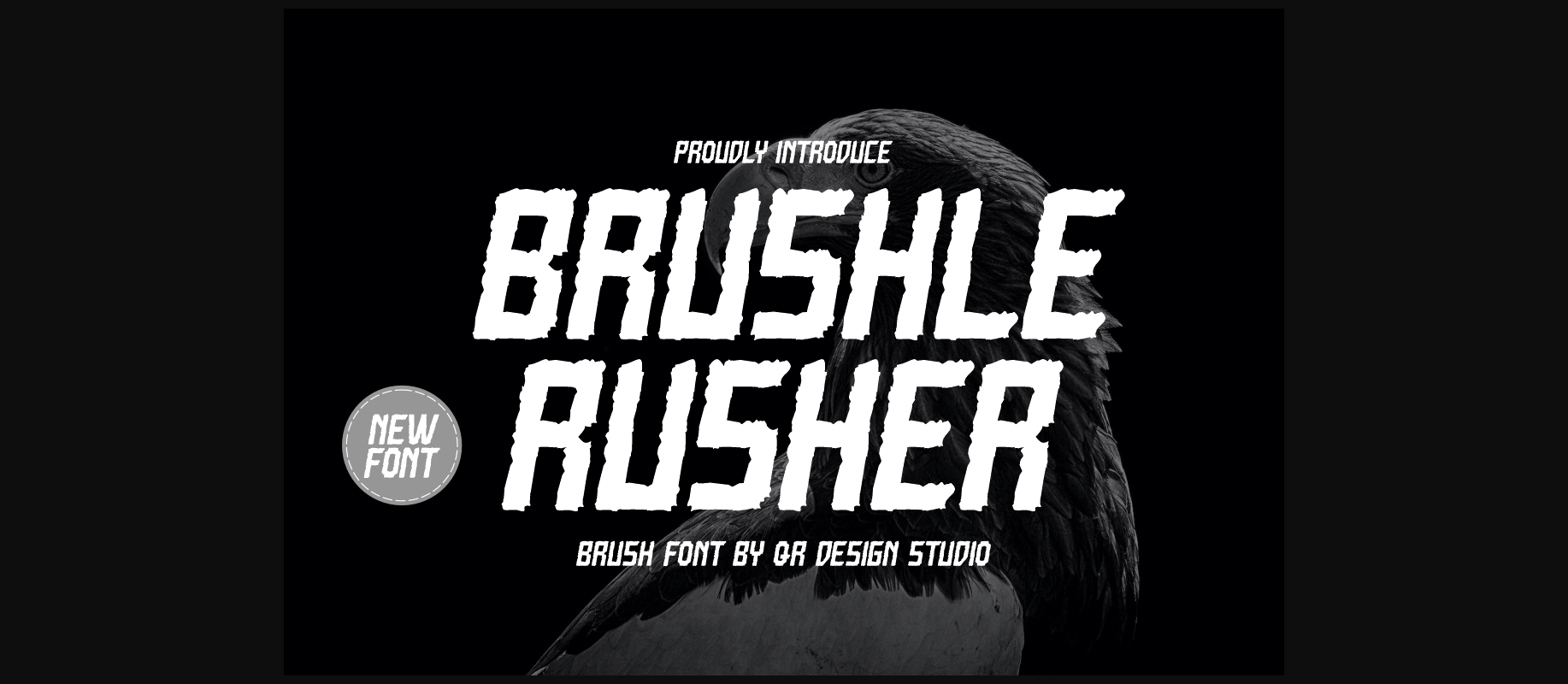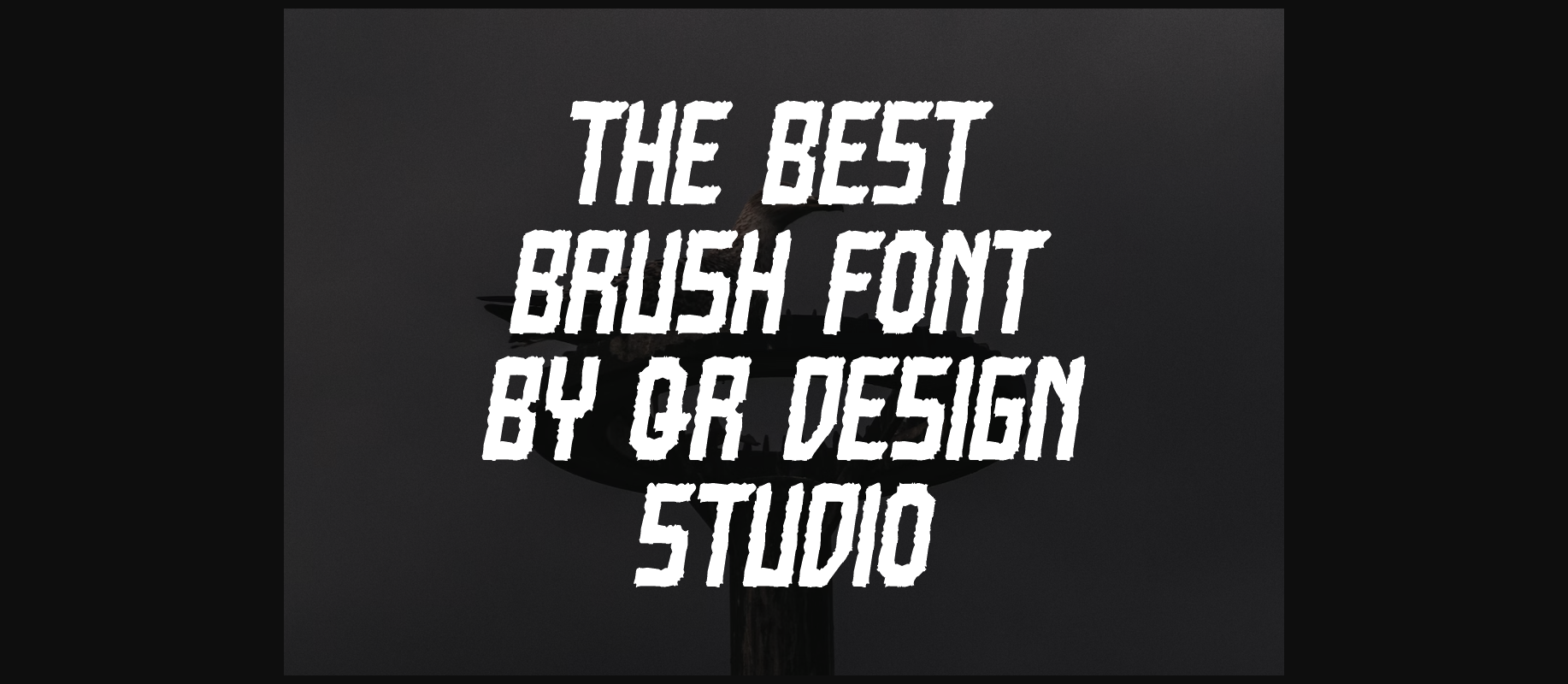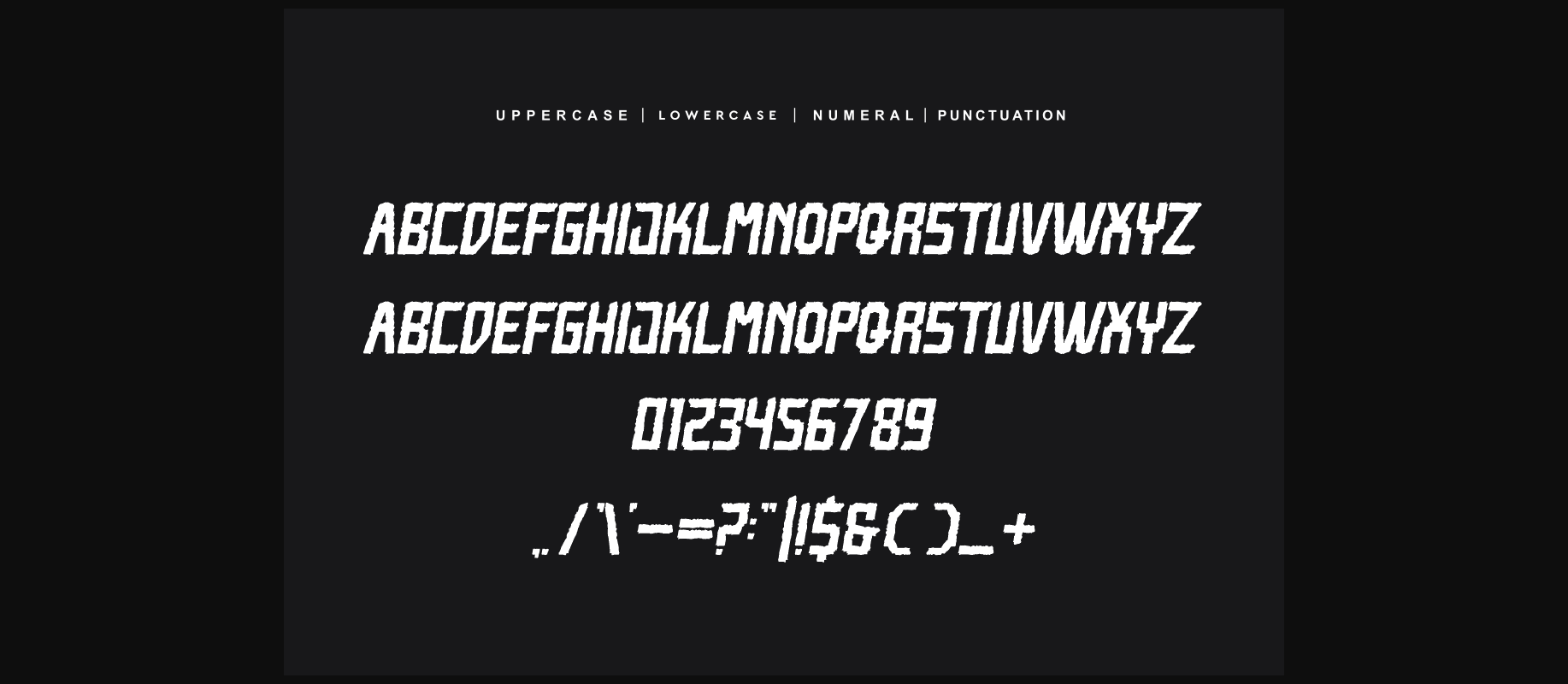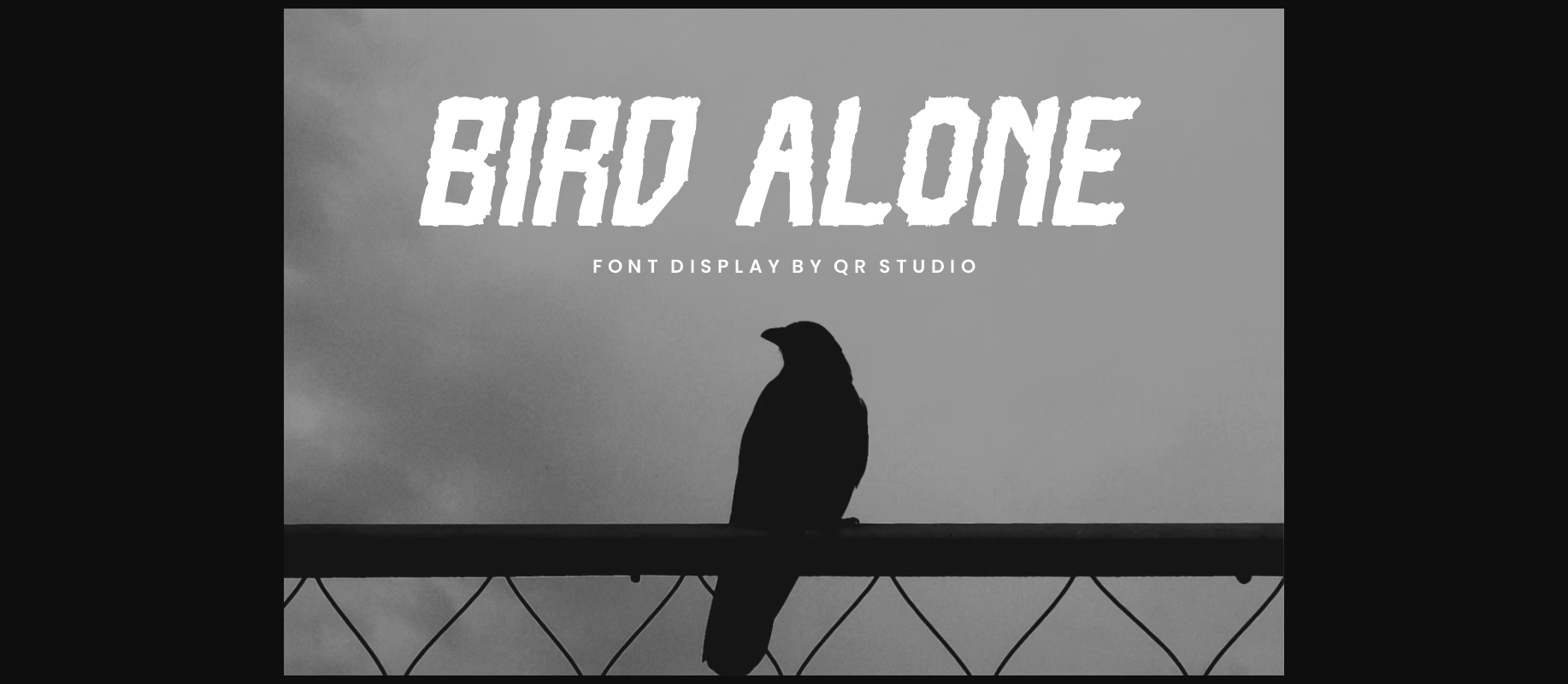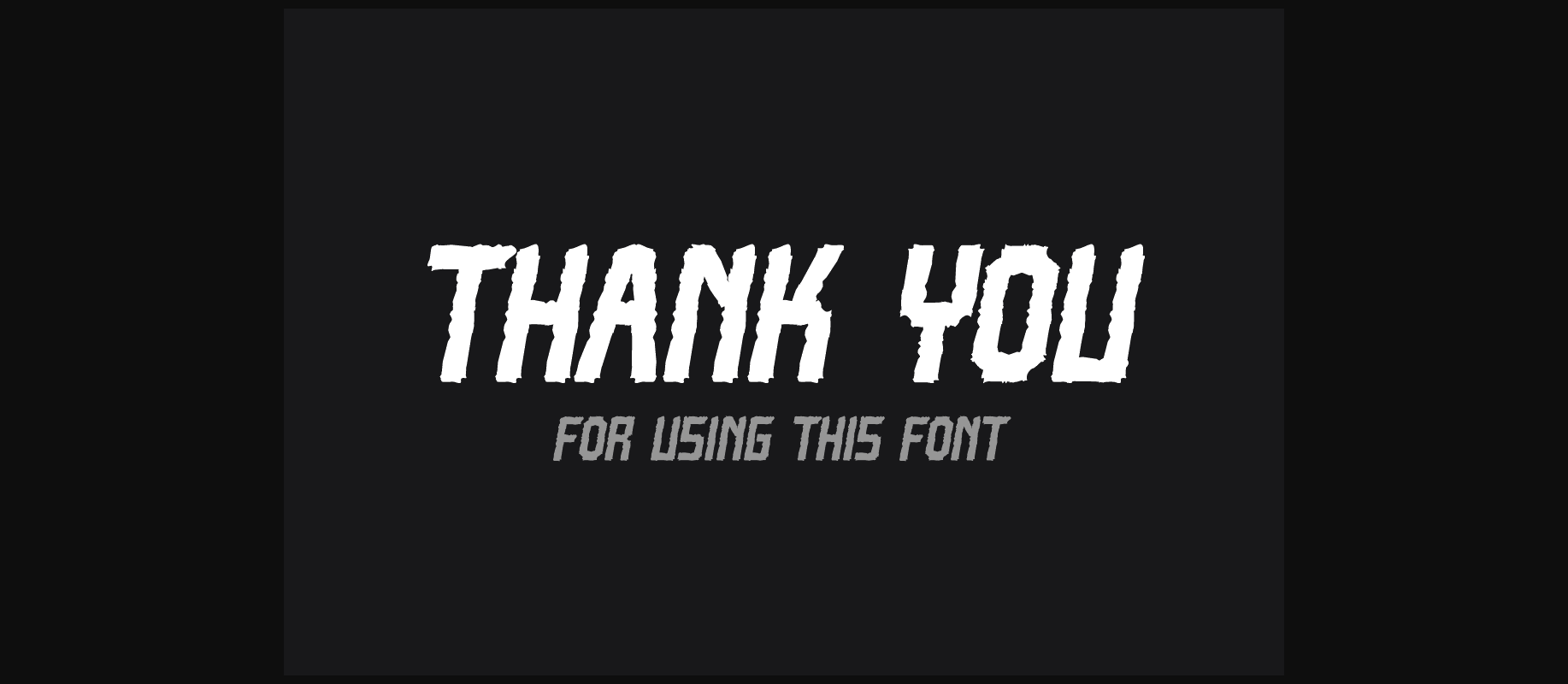
About Brushle Rusher Font
Brushle Rusher is an incredibly cool and unique display font. It has a modern yet whimsical style and it will undoubtedly immerse your designs into a magical world.